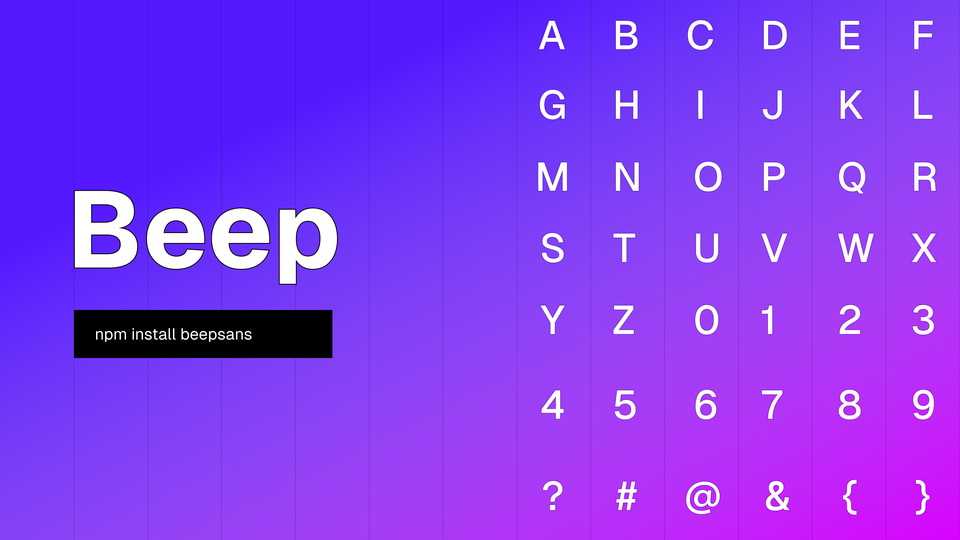
Download Beep Sans font, a sans-serif typeface made for designers and developers, embodying modern principles of simplicity, minimalism, and speed.
Designer: Agbama Ulimhuka